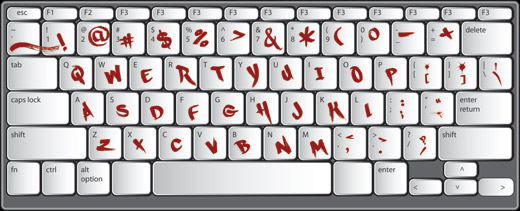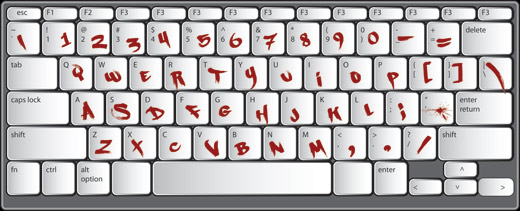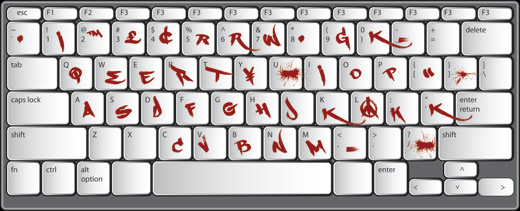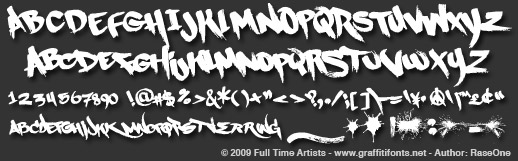
Fresh Paint™
EXCLUSIVE! - All new Graffiti Font™
Super fresh paintbrush style lettering with a definite graffiti slant. Reverse italic & highly detailed these hand made letters, splats, swipes, numbers & symbols give an energetic human feel to your custom text.
Fresh Paint sample alphabet
Fresh Paint Capitol Letters
Fresh Paint Lowercase Letters
Fresh Paint Hidden Glyphs
This font is an all caps style with no real lowercase letters however the single font actually contains 3 full alphabets (78 individual letters) so you can mix and match to create endless unique letter combinations.
Fresh Paint™ also includes several highly detailed paint splatters, brush strokes & swipes to use along with your custom lettering. All glyphs are created from hand made, painted letters, all splatters & strokes are made from real specimens & have sufficient detail to work even at very large sizes.